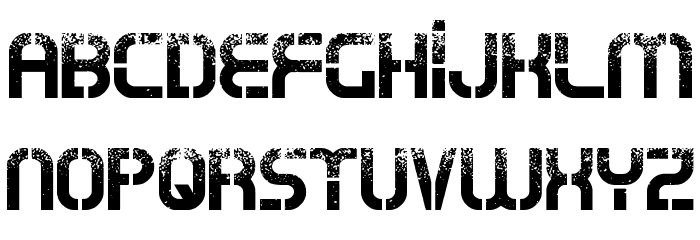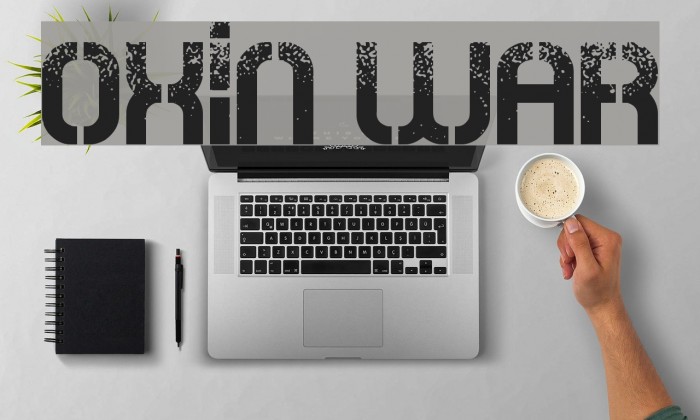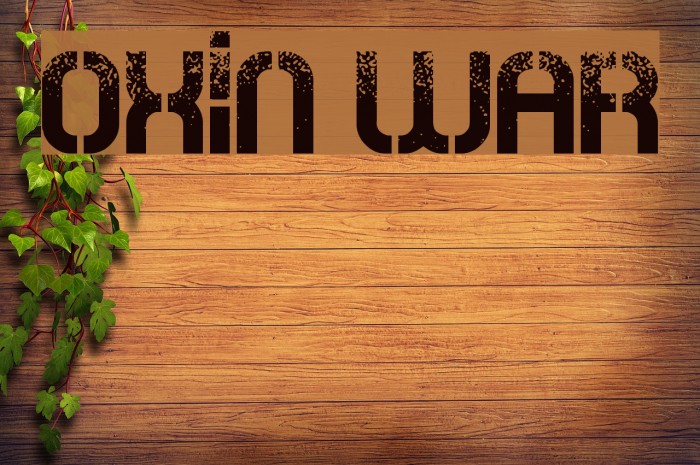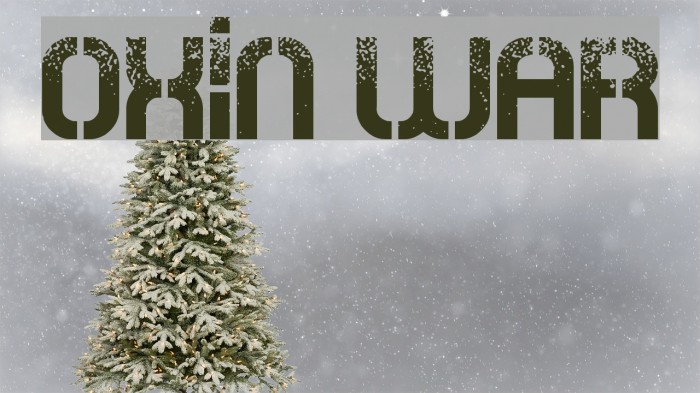
Oxin War Font
This font features a bold, industrial design with a distressed texture that gives it a rugged, worn appearance. The characters are constructed with a strong geometric foundation, incorporating sharp angles and straight lines. The distressed effect adds a layer of complexity, making it ideal for projects that require a gritty, urban aesthetic. The uppercase letters are prominent and commanding, while the lowercase letters maintain the same robust style. This font is particularly suitable for designs that aim to convey strength and resilience, such as posters, branding for outdoor gear, or video game titles.
A bold, distressed font with an industrial and rugged aesthetic.
- Font: Oxin War
- Proposed Projects: Ideal for posters, branding for outdoor gear, video game titles, and any design needing a gritty, urban look.
- Overall Style: Industrial, Rugged